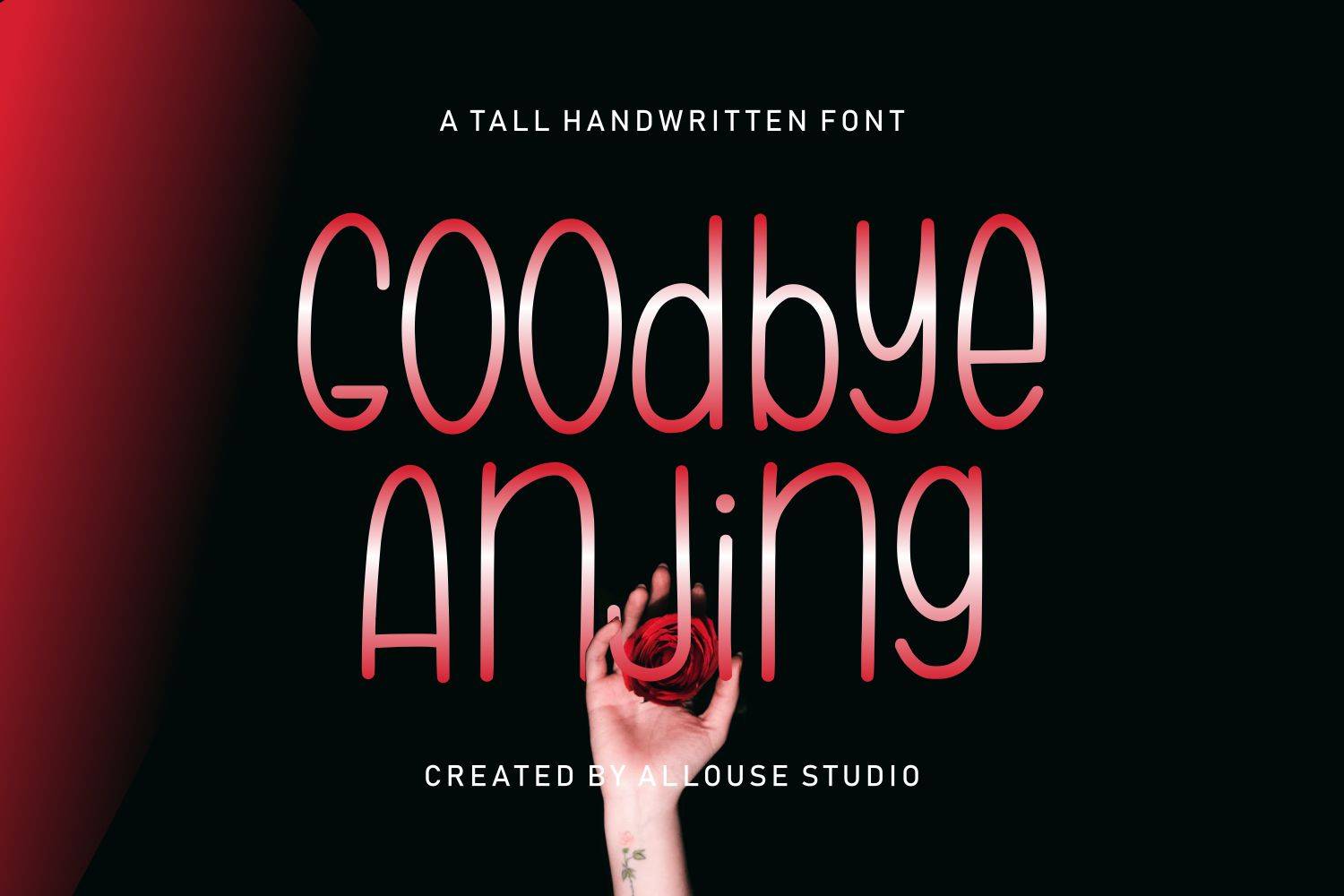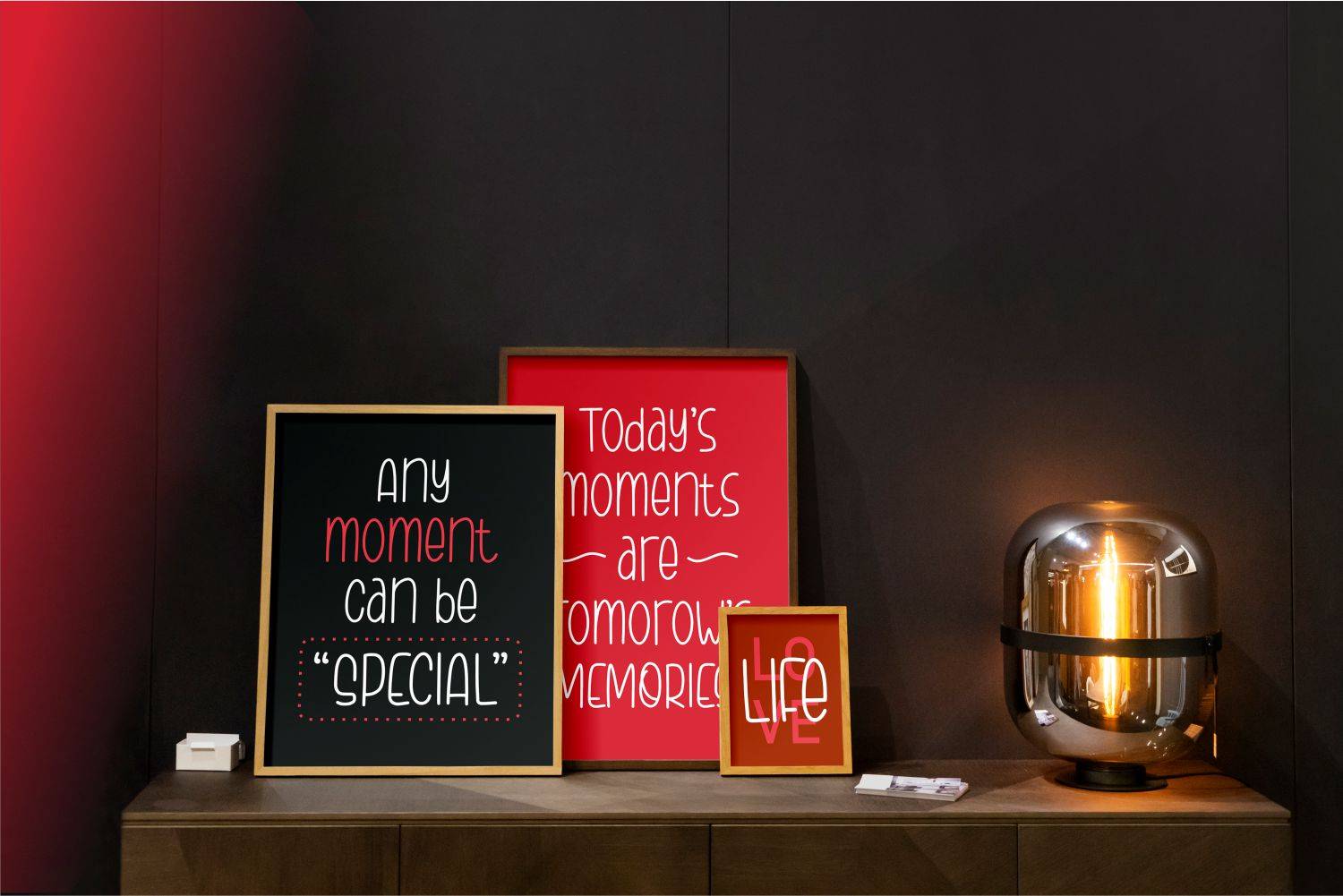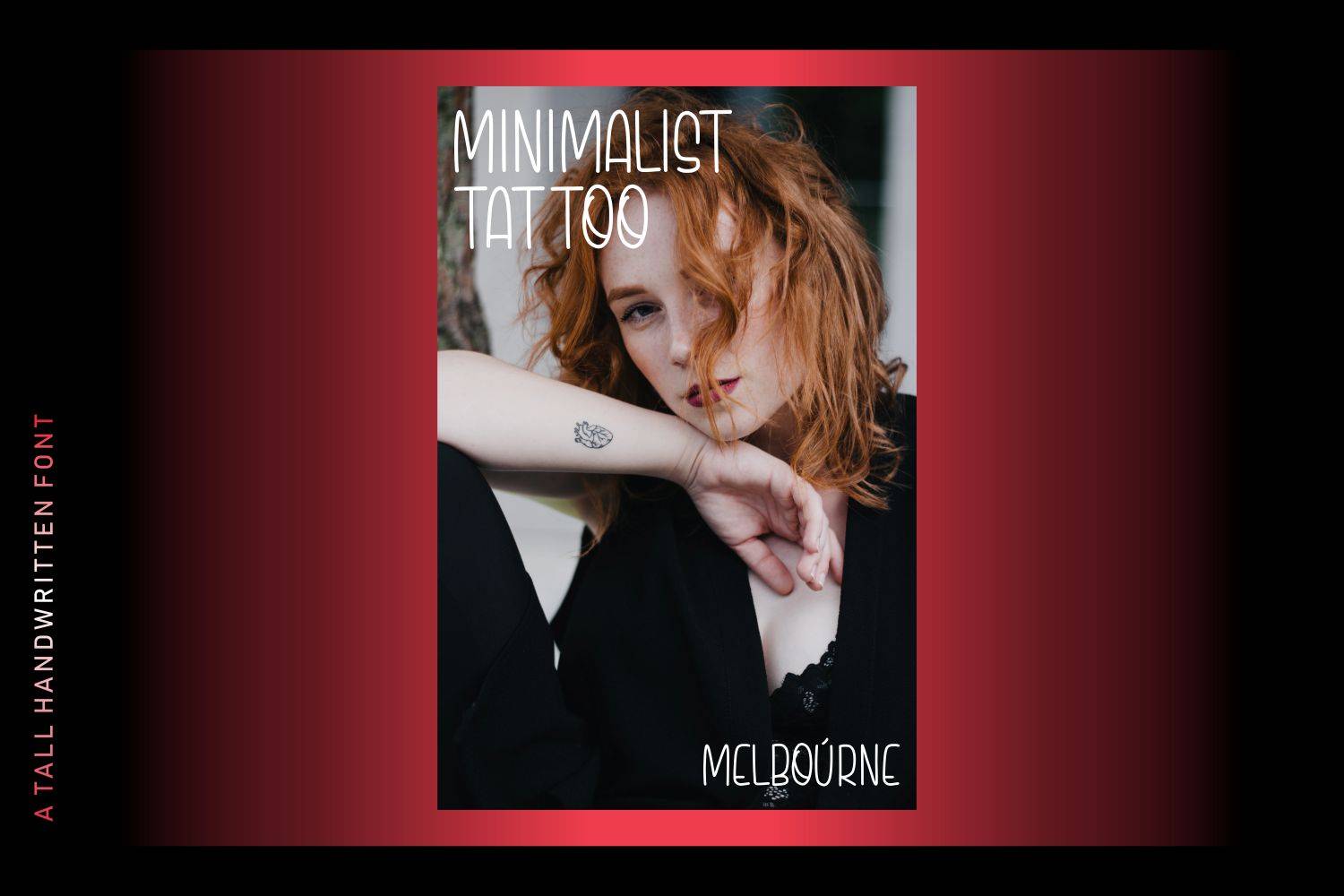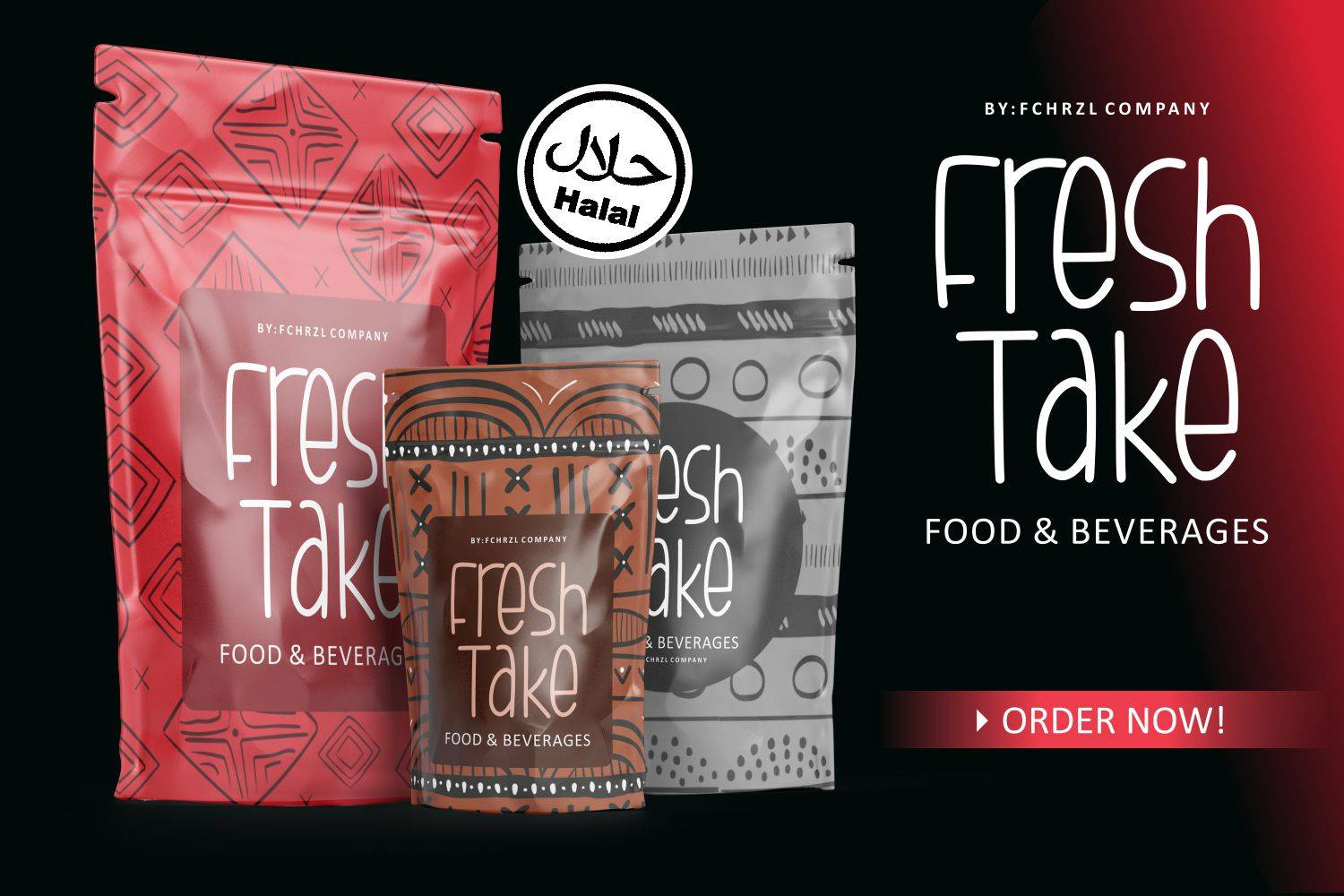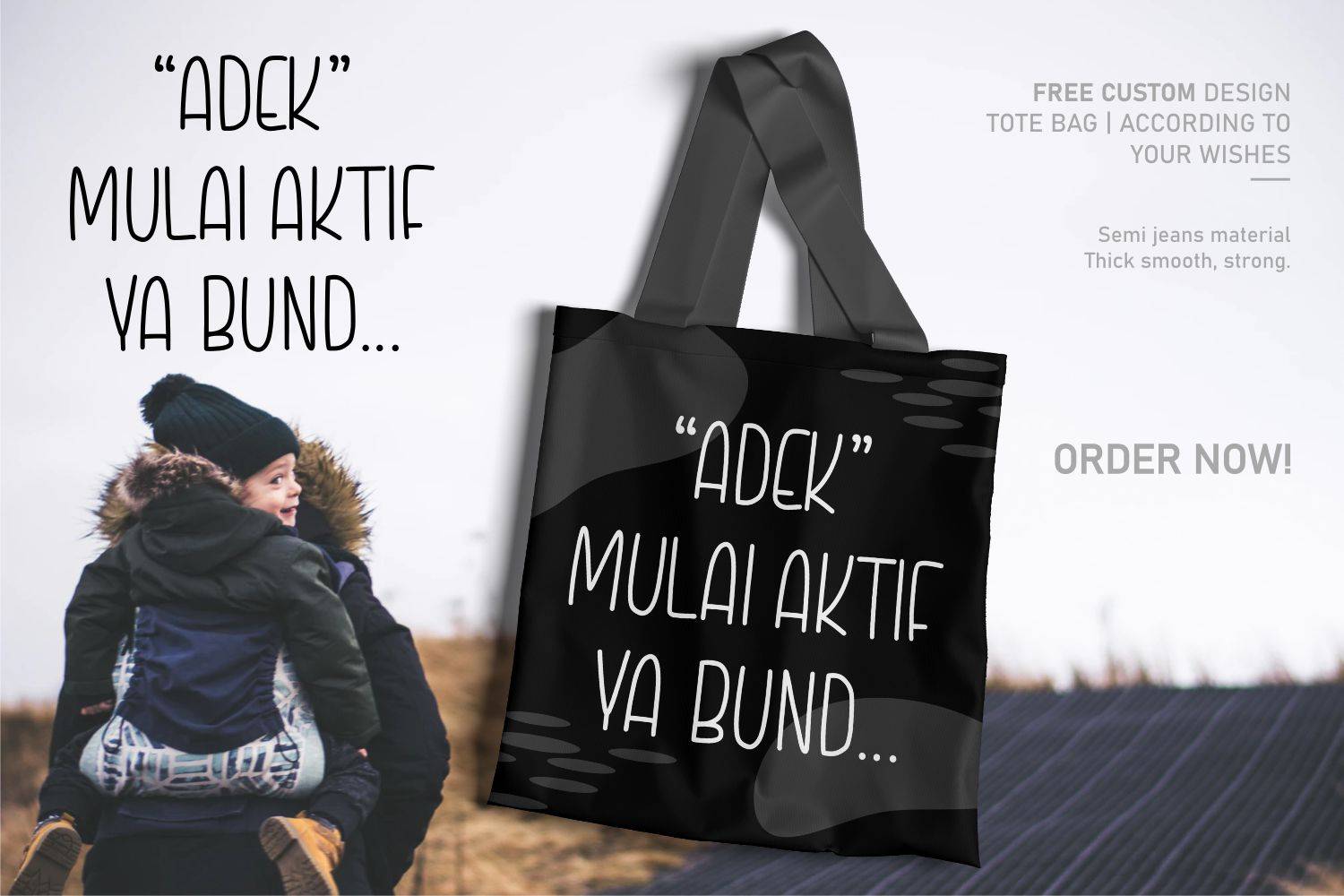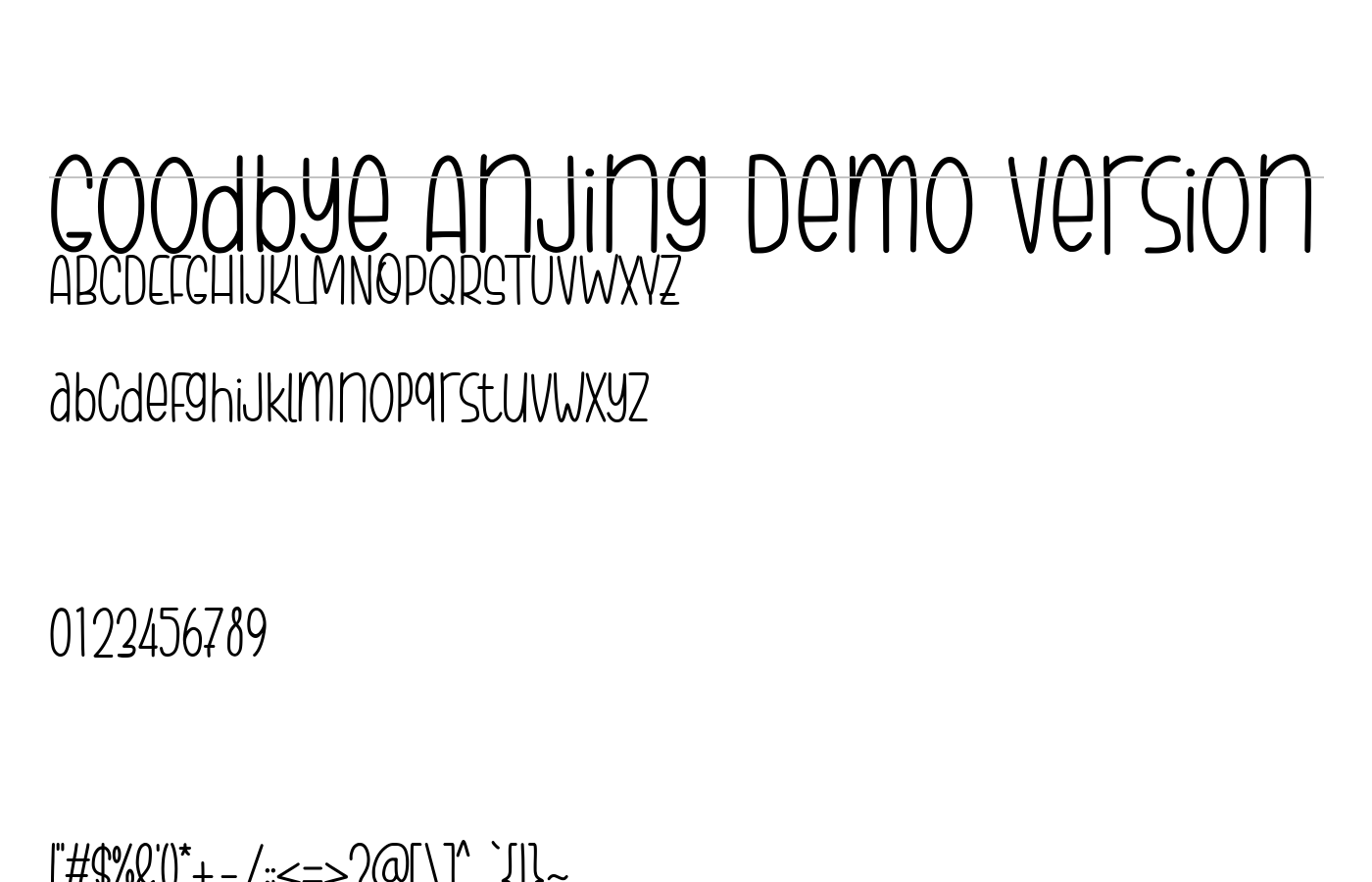
Goodbye Anjing is a playful and quirky sans serif font with tall, narrow letterforms that give it a handwritten, casual feel. Its thin strokes and unique character shapes make it ideal for creative projects, friendly branding, and informal headlines where a fun and approachable tone is desired. This font works best in designs that need a touch of personality and charm without sacrificing readability.
Goodbye Anjing Font
About Goodbye Anjing Font